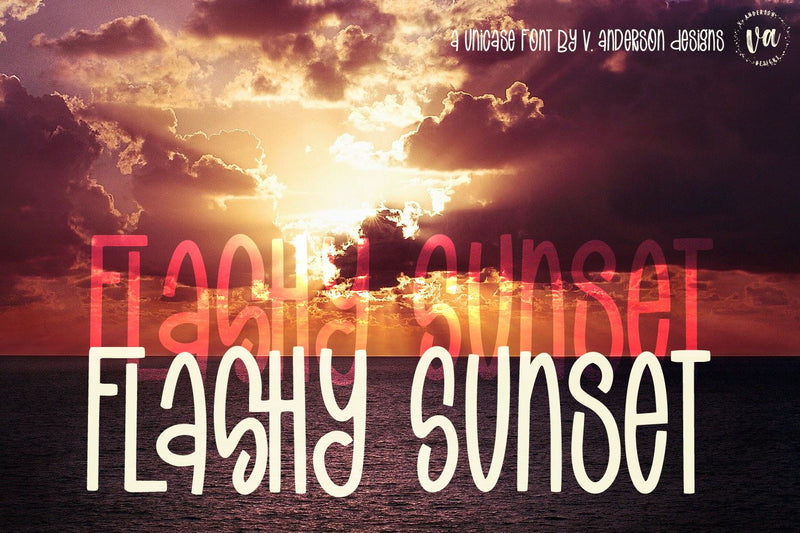
Flashy Sunset | A Handwritten Unicase Font
Flashy Sunset is a handwritten mixed-case/unicase font to give your products that handwritten feel. It's perfect for greeting cards, fun branding, and crafting files.